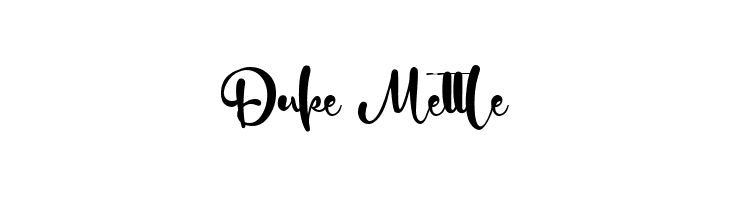
A lively and expressive handwritten script font with bold, sweeping curves.
A lively and expressive script font with flowing, cursive letterforms.
A playful, cursive font with dynamic curves and artistic flair.
A playful and artistic script font with flowing, cursive letterforms.
A bold, playful font with rounded, hand-drawn letterforms.
A playful, handwritten font with smooth, rounded edges and a casual style.
A playful, hand-drawn font with quirky, uneven uppercase letters and smooth, rounded lowercase letters.
A whimsical font with playful curls and loops, perfect for creative projects.
A playful, hand-drawn font with a whimsical and friendly style.
A playful, hand-drawn font with a whimsical and casual style.